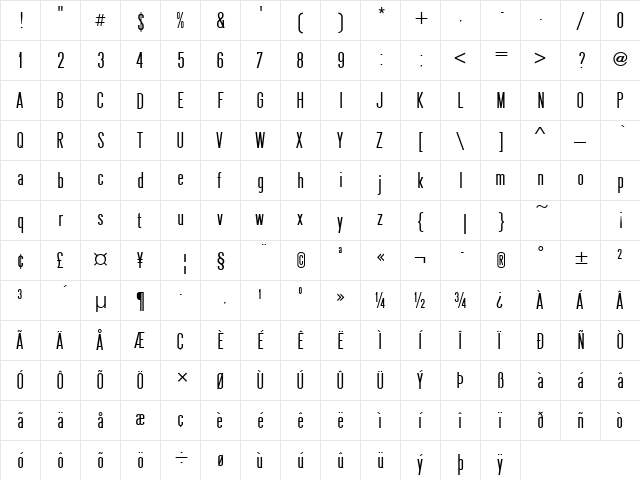
Snv Becker Ext Cond Regular
Design Context for Snv Becker Ext Cond Typeface
Snv Becker Ext Cond is a composed and adaptable typeface that performs quietly and consistently across a wide range of design contexts. Its narrow stance lets it pack a punch even in space-constrained designs.
Pro Tip: Use Snv Becker Ext Cond in both headline and body roles to test its range before committing to a single application.